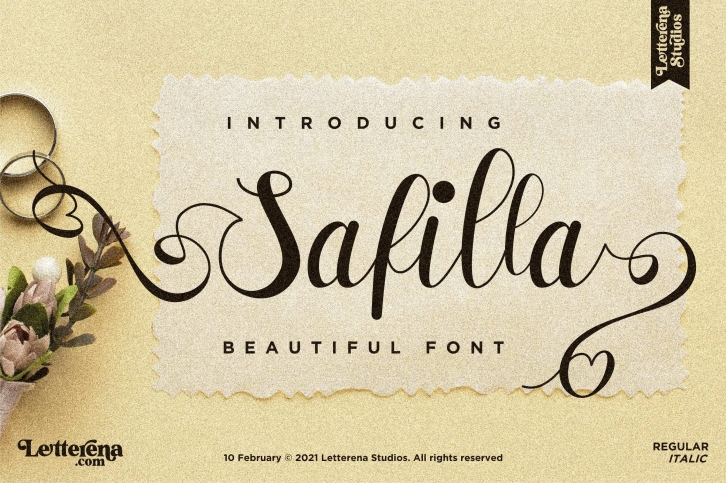
Safilla - Beautiful Script Font Download
Safilla is a gorgeous font that was realeased on February 10, 2021. The font can be used in many style contexts and design environments. Perfect for invitations, magazines, websites, logos, and more! It was designed by Letterena Studios and the file size is 16.59 MB. Thanks for checking out this font!